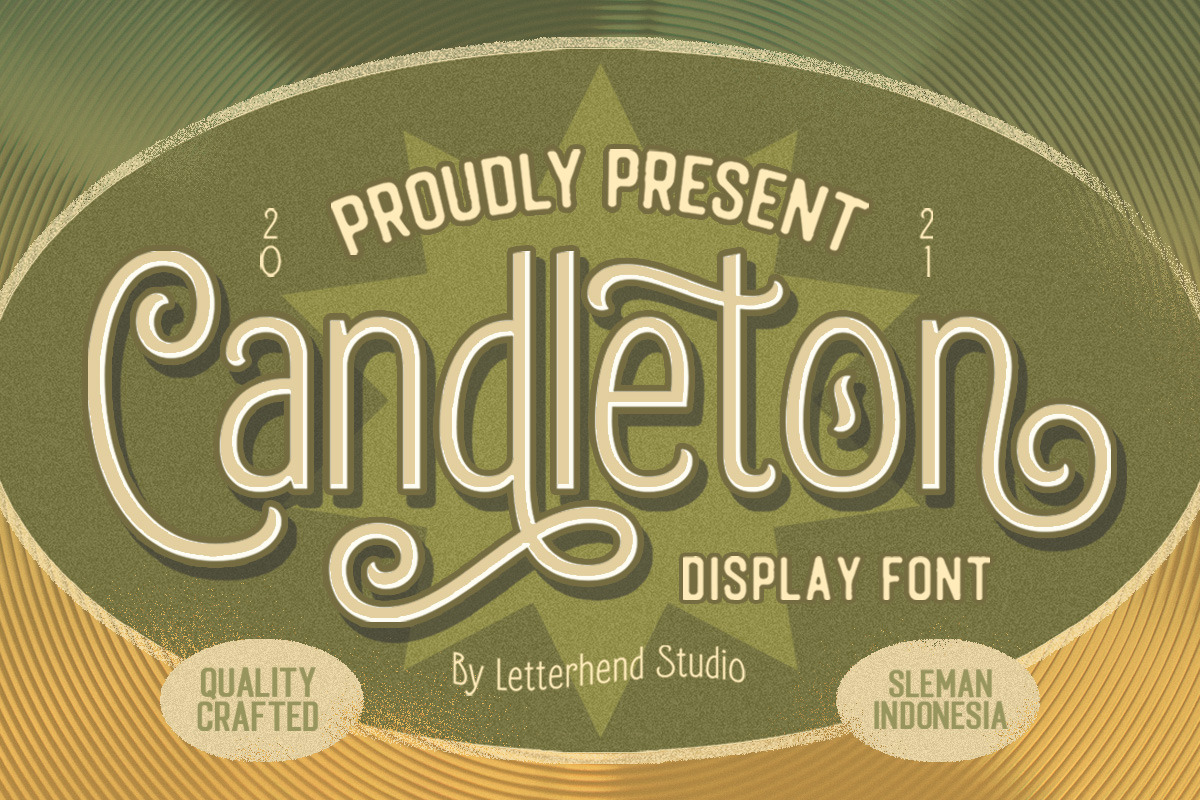
Candleton - Display Font
Introducing, Candleton - A classic sans serif with swashes. The stylistic alternates and ligatures make this font event more unique and stands from the crowd. This font perfectly made to be applied especially in logo, and the other various formal forms such as invitations, labels, logos, magazines, books, greeting / wedding cards, packaging, fashion, make up, stationery, novels, labels or any type of advertising purpose.
- alternates, swashes & ligatures